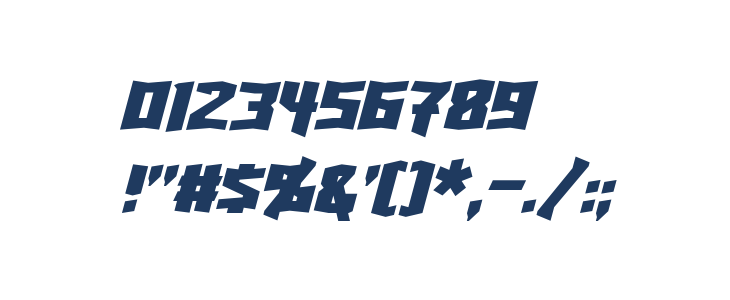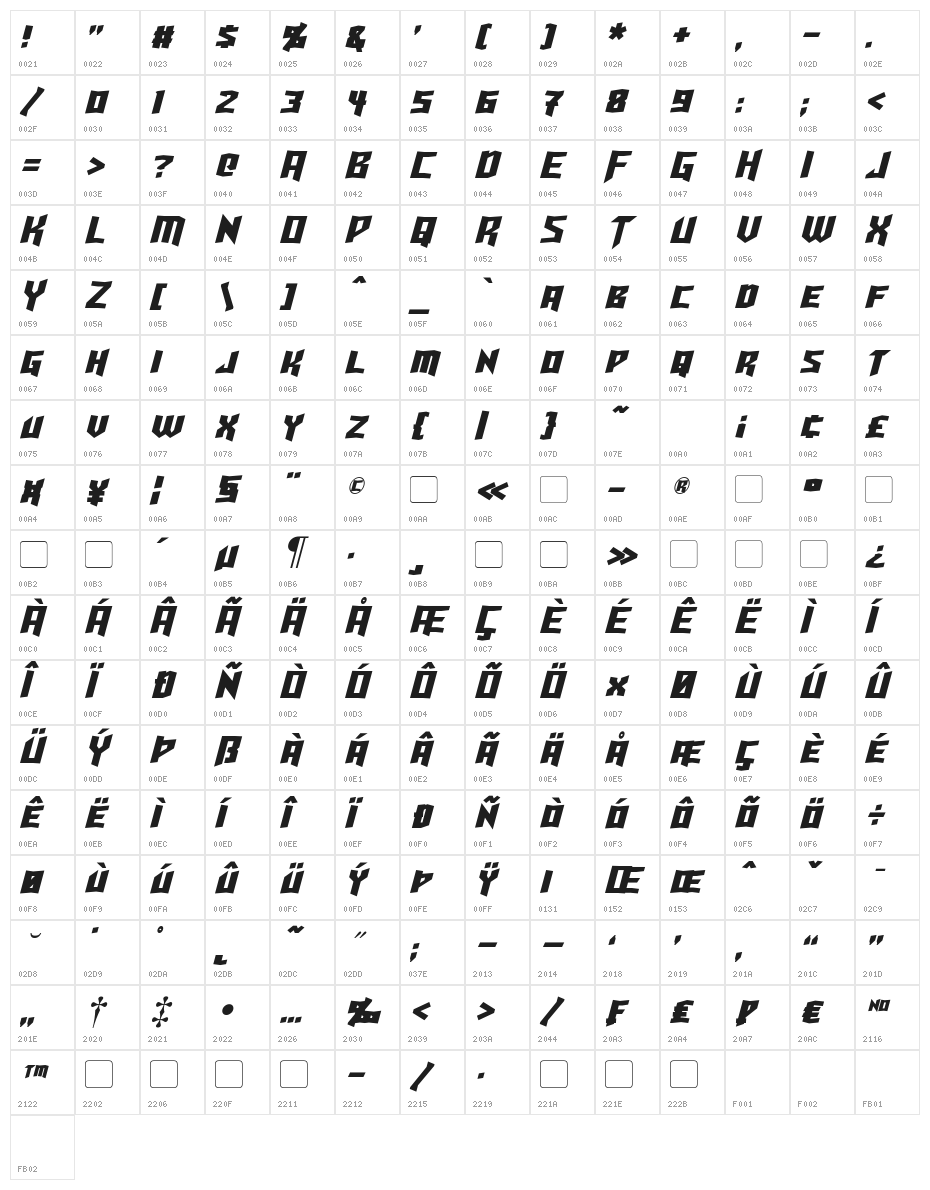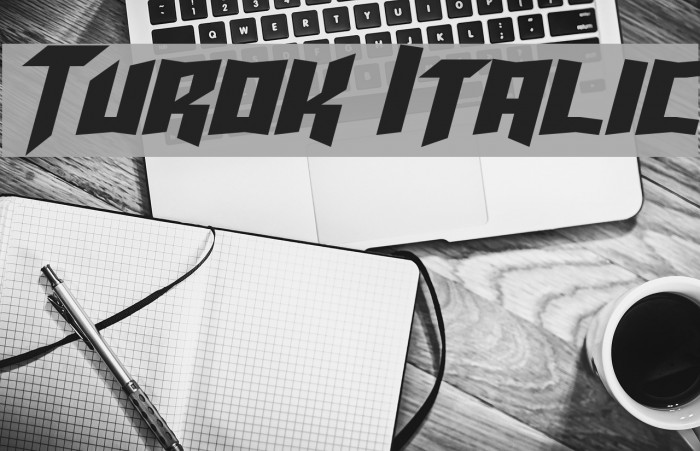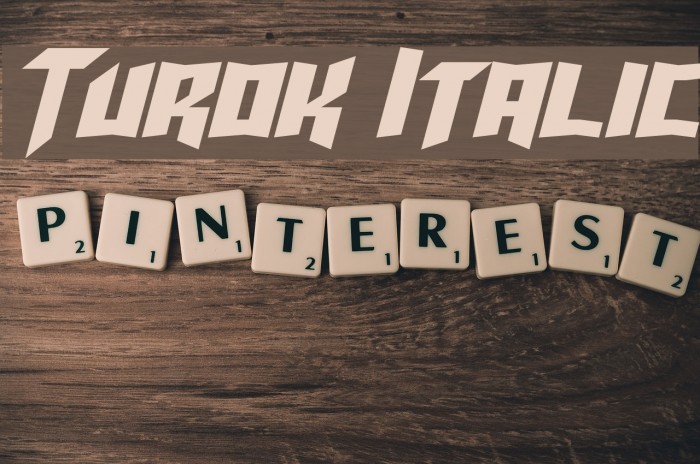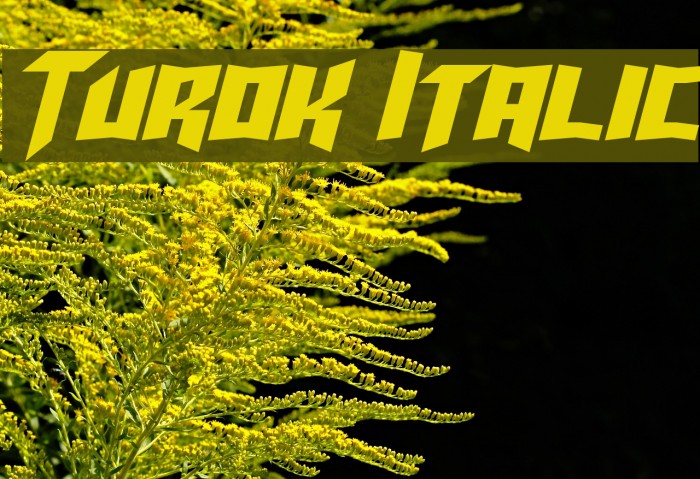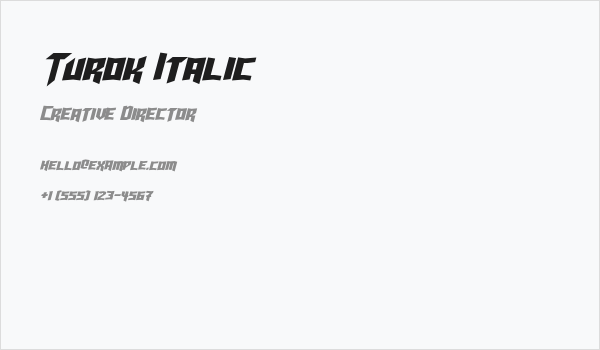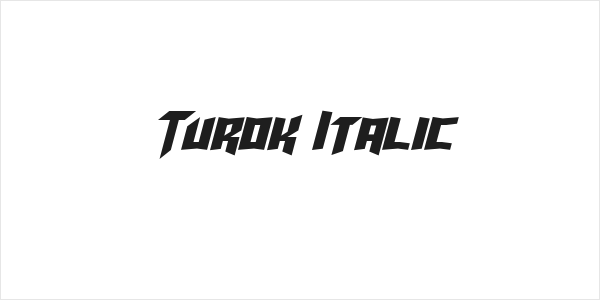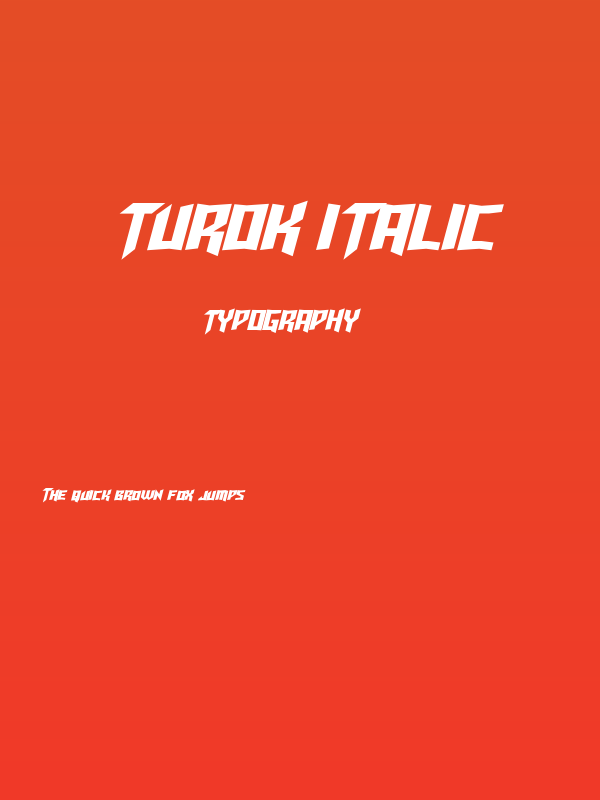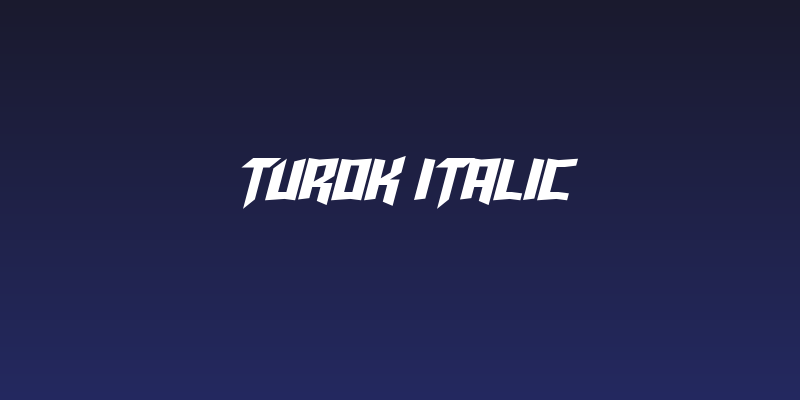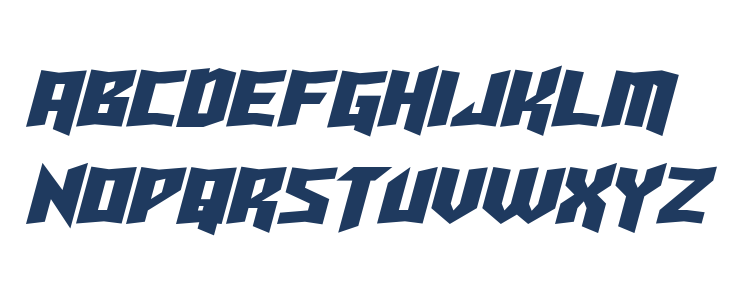
Turok Italic Font
Turok Italic Description
This font features a bold and angular design, characterized by sharp edges and a dynamic, italicized slant. The letters are heavily stylized, giving them a futuristic and aggressive appearance. The uppercase and lowercase letters maintain a consistent style, with exaggerated angles and a strong visual impact. The numbers and special characters follow the same design principles, ensuring uniformity across all characters. This font is ideal for projects that require a bold and eye-catching typeface.
Overall StyleFuturistic, Aggressive
Proposed ProjectsIdeal for video game titles, movie posters, sports branding, and any project requiring a dynamic and bold typeface.